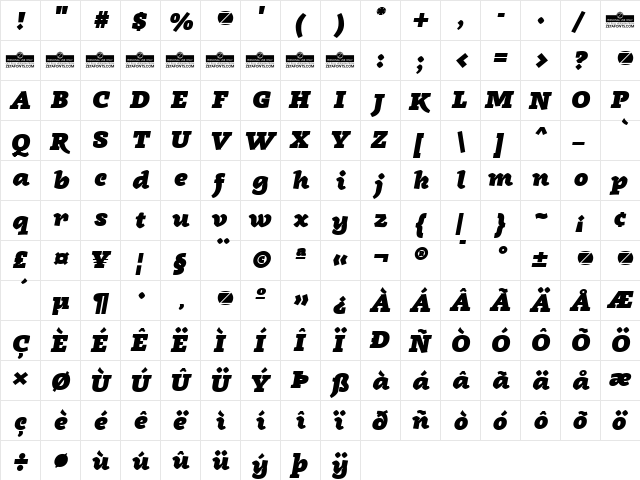
Radcliffe Display Heavy Italic
| Foundry | Studio Kmzero |
| Designer | Cosimo Lorenzo Pancini |
Design Context for Radcliffe Display Typeface
Radcliffe Display is built around its visual character rather than neutral utility — its distinctive forms are designed to make an impression at display sizes. Its italic angle brings a sense of urgency and motion to the letterforms.
Font Pairing: Pair with a clean neutral sans-serif for body copy to let Radcliffe Display's character lead without overwhelming the composition.
Pro Tip: Use Radcliffe Display exclusively at display sizes — it was designed to be seen, not read at length. Let a neutral companion handle body copy.